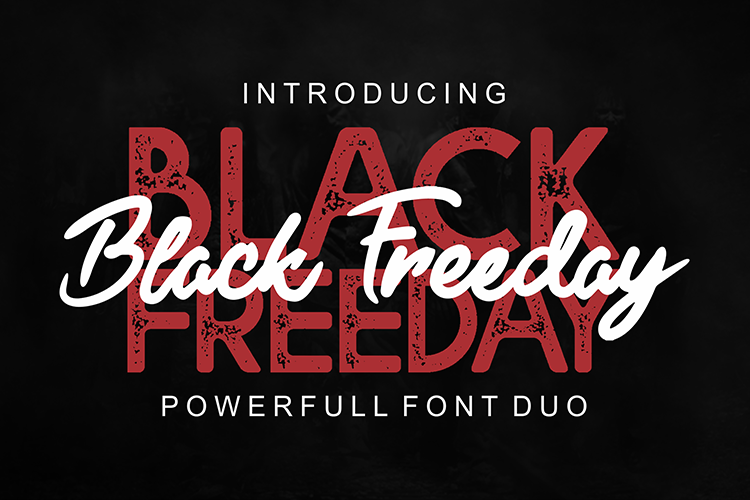
Black Freeday Font Duo
Hey there. This is a playful script containing many choices of alternative characters to choose from as well as ligatures that look natural to add to the authenticity of letters. Introducing Black Freeday Typeface. The Black Freeday is a powerfull font duo inspired by the excitement of black friday moments. It included 2 styles that can make your design more unique. This font is perfect for branding, logos, web and editorial design, branding, prints, invitations, crafts, quotes, and more.